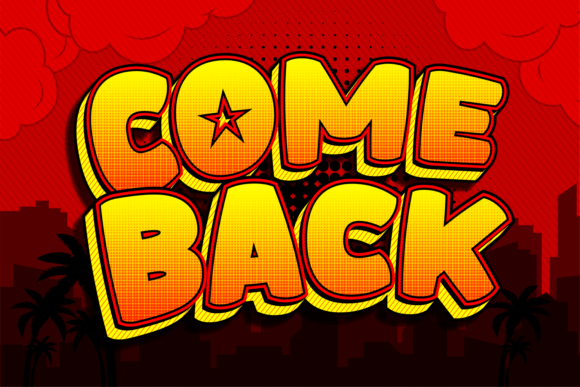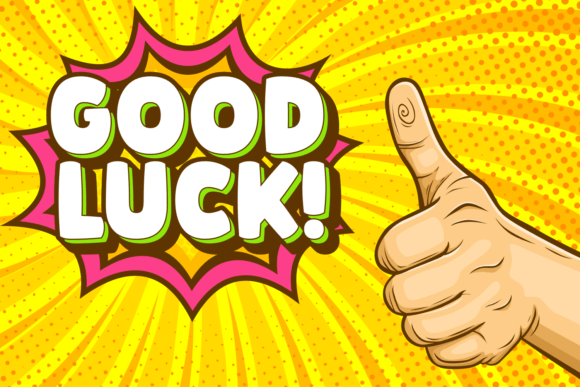
Genius Heroes Font: The Ultimate Display Font for Bold Typography
Are you looking for a font that can add a touch of playfulness and boldness to your designs? Look no further than the Genius Heroes Font! This thick and chubby display font is perfect for creating impressive typography that stands out from the crowd. In this article, we’ll dive into the features and benefits of Genius Heroes, and explore how it can elevate your design projects.
What is Genius Heroes Font?
Genius Heroes is a cartoon-inspired display font that is designed to make a statement. Its thick and chubby letters are perfect for creating bold and eye-catching typography that grabs attention. The font is versatile and can be used for a wide range of projects, from posters and flyers to logos and branding materials.
Key Features of Genius Heroes Font
- Thick and Chubby Letters: The font features thick and chubby letters that are perfect for creating bold and eye-catching typography.
- Cartoon-Inspired: The font has a playful and cartoon-inspired design that adds a touch of fun and personality to your designs.
- Wide Range of Uses: The font is versatile and can be used for a wide range of projects, from posters and flyers to logos and branding materials.
Benefits of Using Genius Heroes Font
So why should you choose Genius Heroes Font for your design projects? Here are just a few benefits of using this amazing font:
- Easily Create Bold Typography: With Genius Heroes, you can easily create bold and eye-catching typography that grabs attention.
- Add a Touch of Playfulness: The font’s cartoon-inspired design adds a touch of fun and personality to your designs.
- Versatile and Flexible: The font is versatile and can be used for a wide range of projects, from posters and flyers to logos and branding materials.
Who Can Benefit from Genius Heroes Font?
Genius Heroes Font is perfect for designers, crafters, and anyone who wants to add a touch of boldness and playfulness to their designs. Here are just a few examples of who can benefit from this amazing font:
- Graphic Designers: Graphic designers can use Genius Heroes Font to create bold and eye-catching typography for posters, flyers, and other design materials.
- Crafters: Crafters can use the font to create fun and playful designs for their craft projects, such as scrapbooking and card making.
- Small Business Owners: Small business owners can use Genius Heroes Font to create bold and eye-catching branding materials, such as logos and business cards.
In conclusion, Genius Heroes Font is an amazing display font that is perfect for creating bold and eye-catching typography. Its thick and chubby letters, cartoon-inspired design, and PUA encoding make it a versatile and easy-to-use font that is perfect for a wide range of projects. Whether you’re a designer, crafter, or small business owner, Genius Heroes Font is a great addition to your font library.